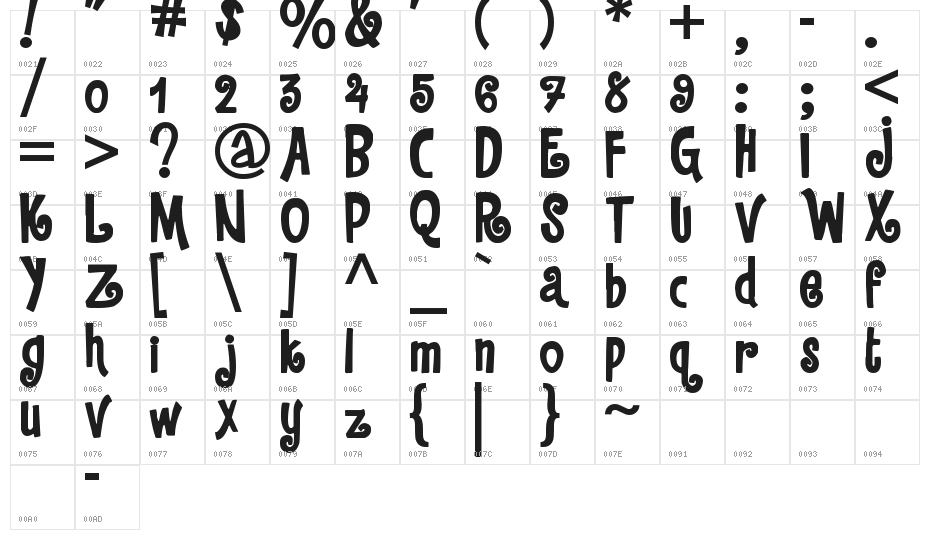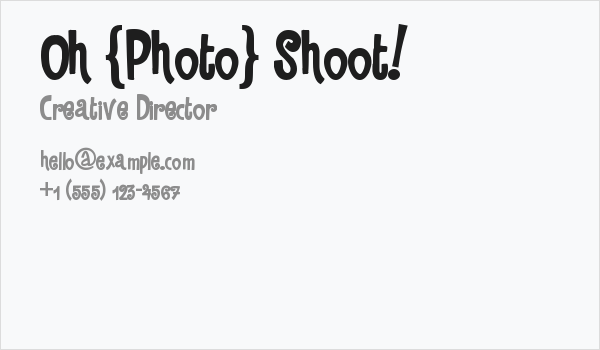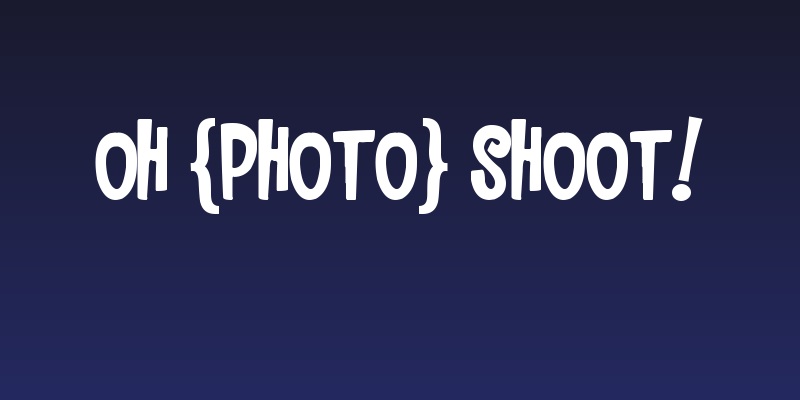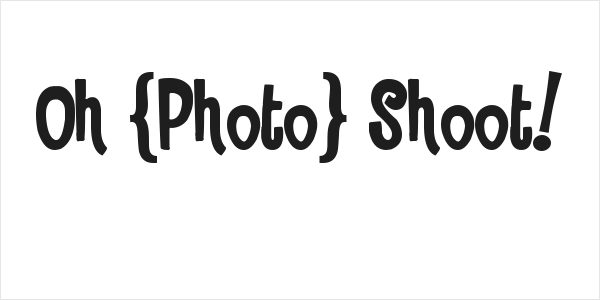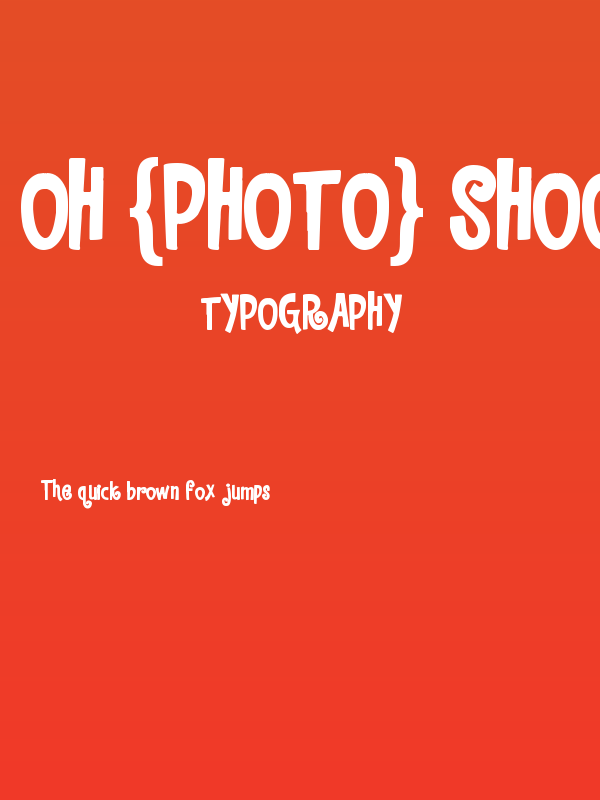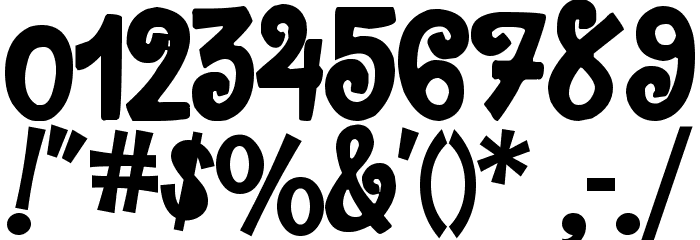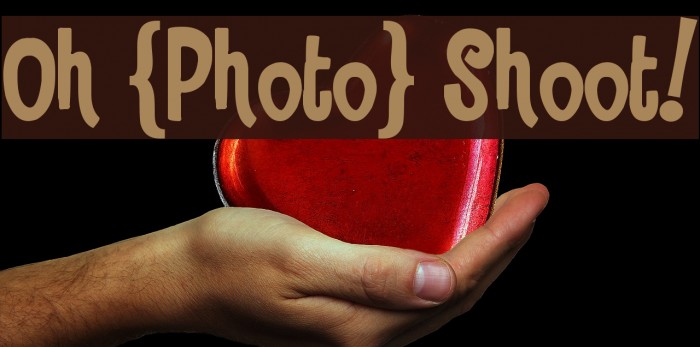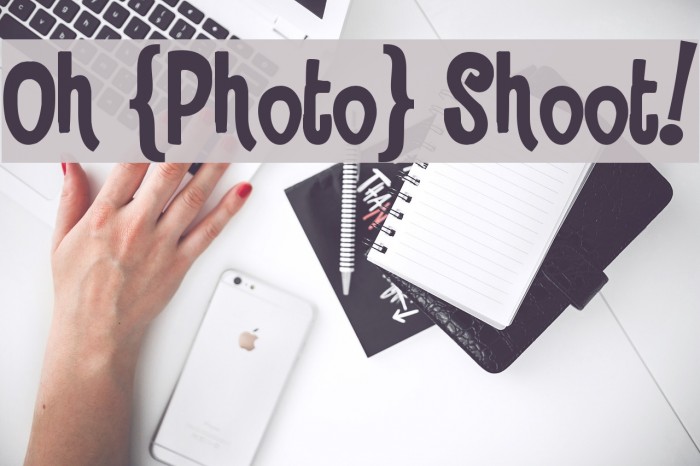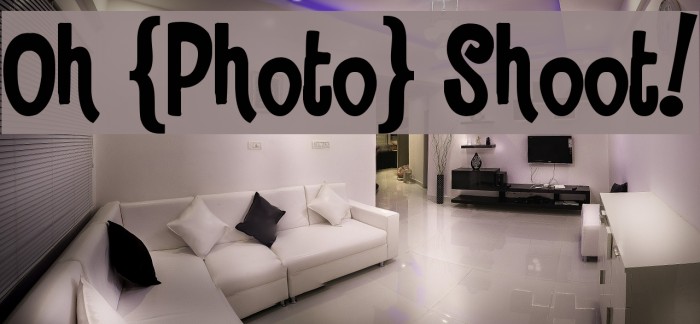
Oh {Photo} Shoot! Font
Oh {Photo} Shoot! Description
This playful and whimsical font features bold, rounded characters with a unique and quirky design. Each letter has its own personality, with some incorporating swirls and curls that add a sense of fun and creativity. The font maintains a consistent thickness throughout, giving it a solid and impactful appearance. Its decorative style makes it ideal for projects that require a touch of humor and lightheartedness. The numbers and special characters follow the same playful theme, ensuring a cohesive look across all text elements.
| Overall Style | Playful, Whimsical, Decorative |
| Proposed Projects | Ideal for children's books, playful branding, party invitations, and creative posters. |